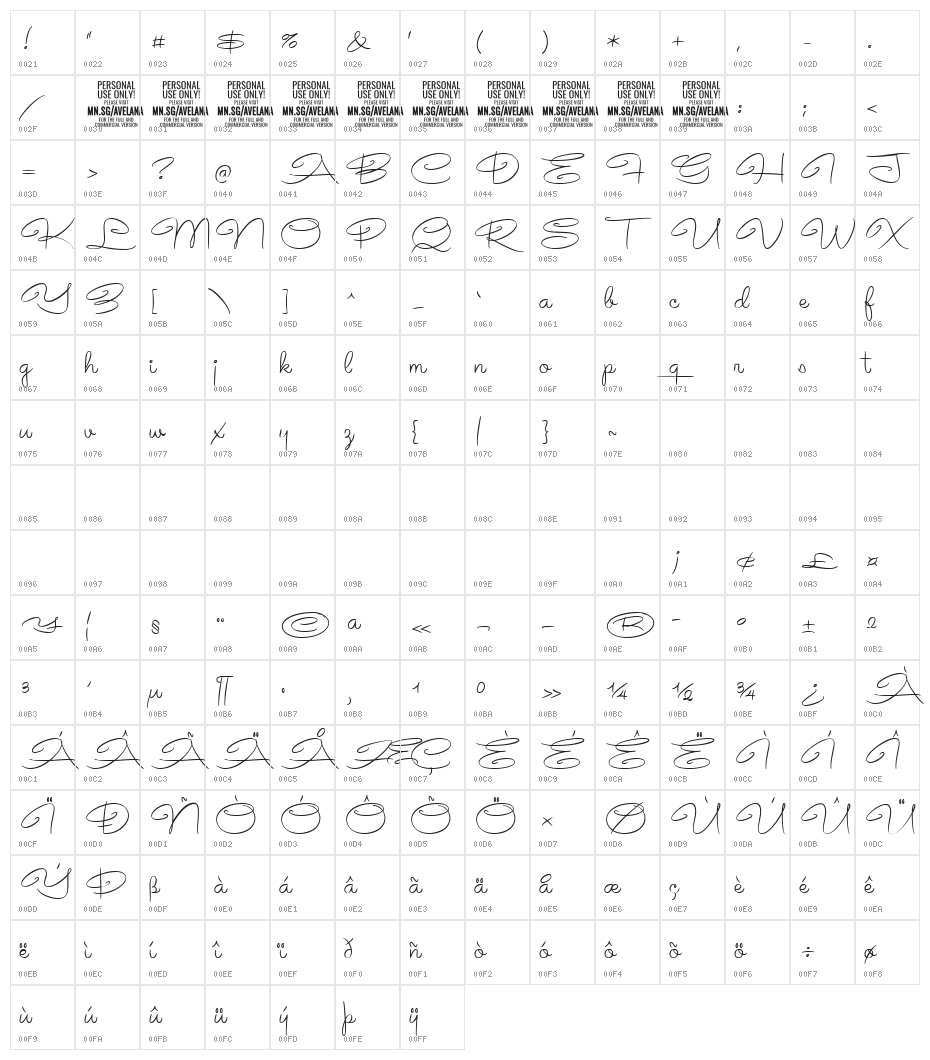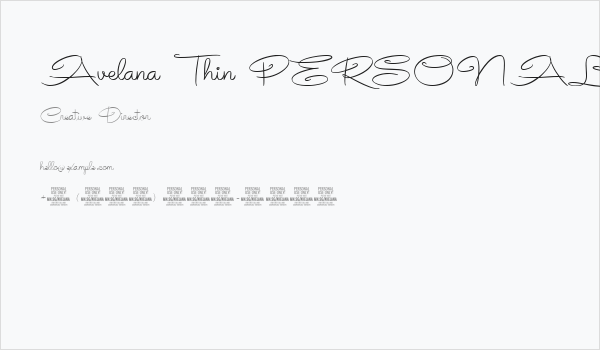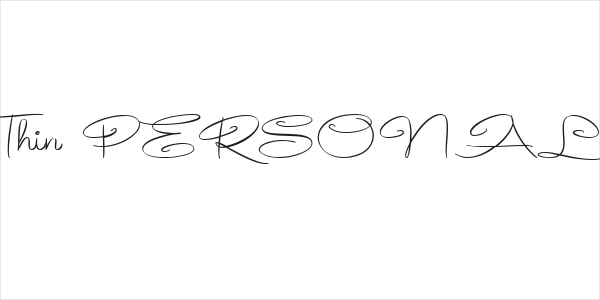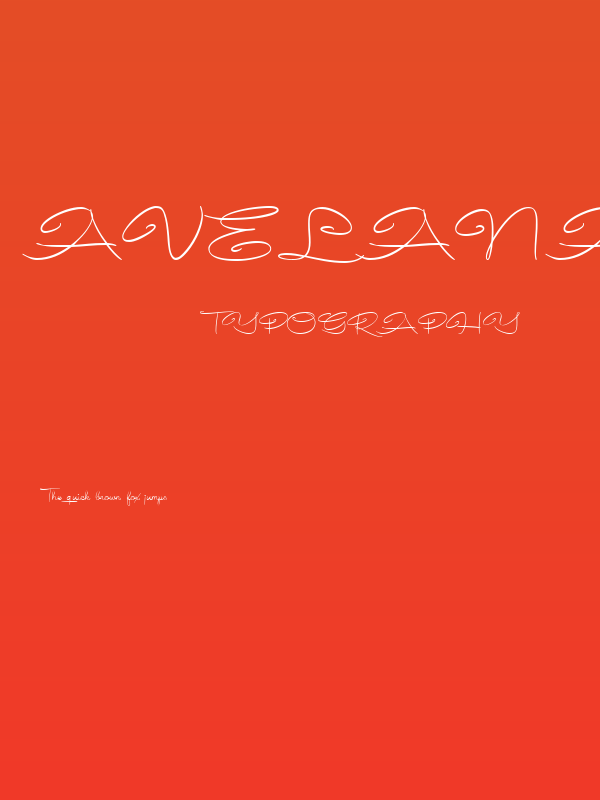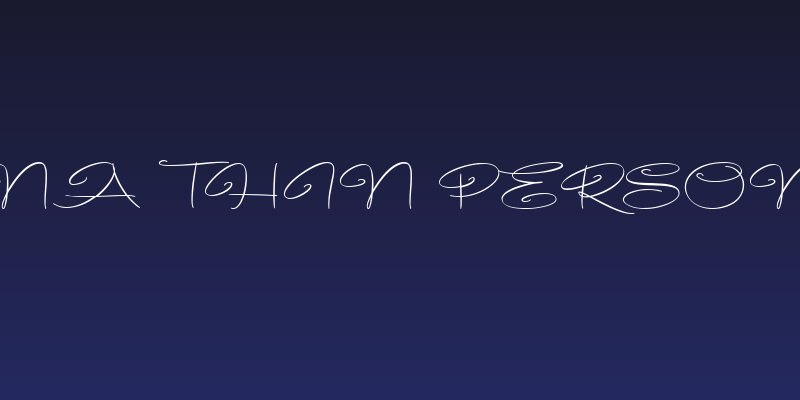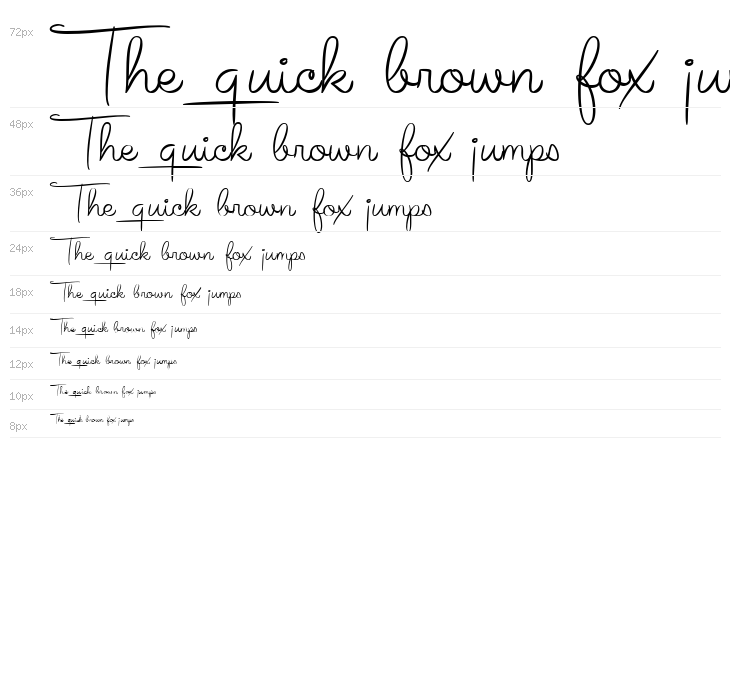
Avelana Thin PERSONAL USE Font
Avelana Thin PERSONAL USE Description
This font features a delicate and elegant script style, characterized by its thin and flowing lines that give it a graceful appearance. The uppercase letters exhibit a sophisticated flair with subtle loops and curves, while the lowercase letters maintain a consistent fluidity, enhancing the overall aesthetic. The numerals and special characters are crafted with the same attention to detail, ensuring a harmonious look across all elements. This font's thin strokes and airy design make it ideal for projects that require a touch of elegance and refinement.
| Proposed Projects | Ideal for wedding invitations, elegant branding, personal stationery, and decorative quotes. |